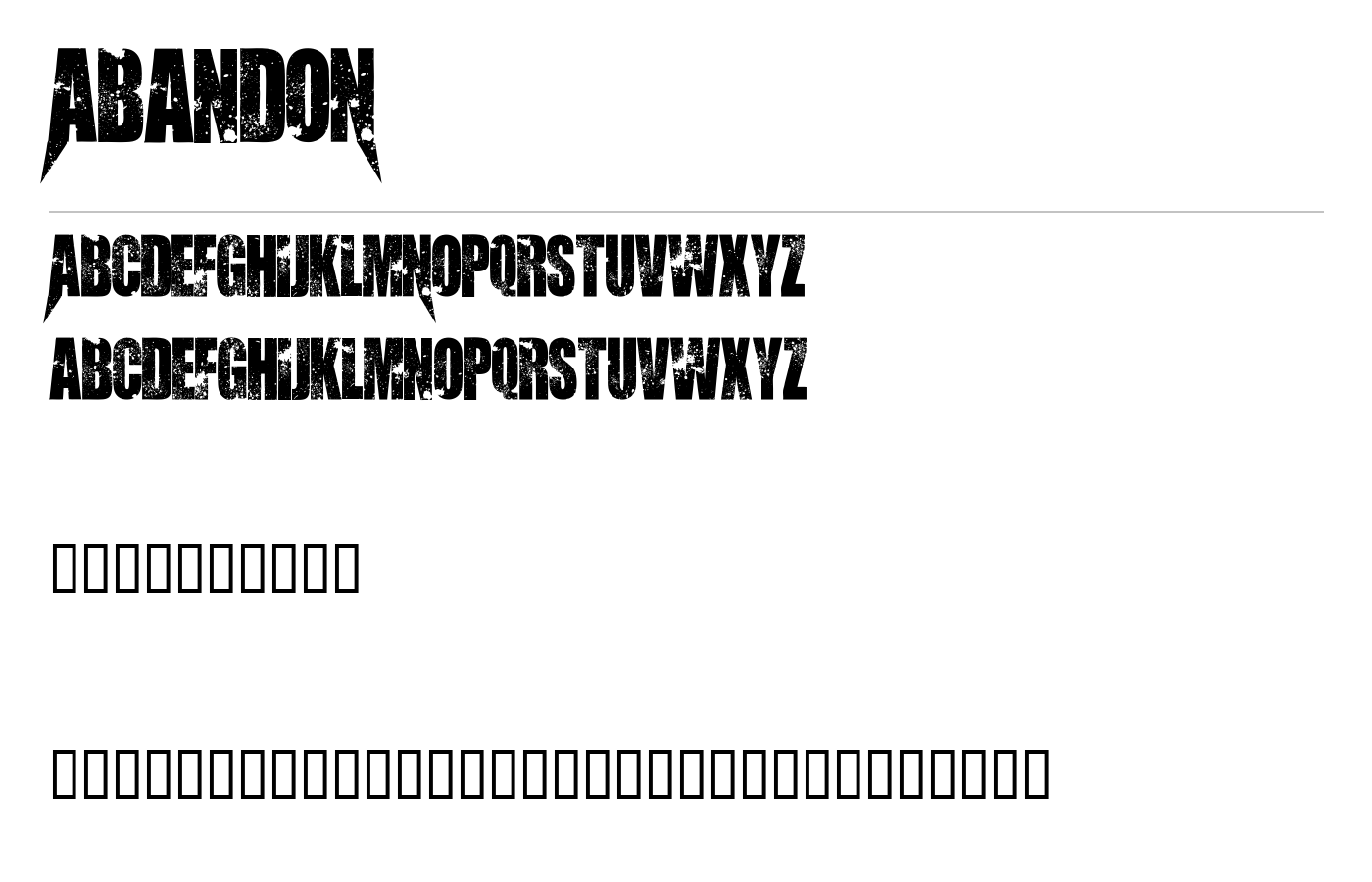
AbandoN is a bold, distressed sans serif font that features a strong, wide stance with sharp, angular elements that give it a dynamic, edgy feel. Its textured, grungy appearance makes it ideal for designs needing a rugged, rebellious, or intense vibe, perfect for posters, logos, or branding in music, sports, and alternative culture. This font commands attention with its all-caps style and sharp points, ensuring a striking, memorable impact in display use.